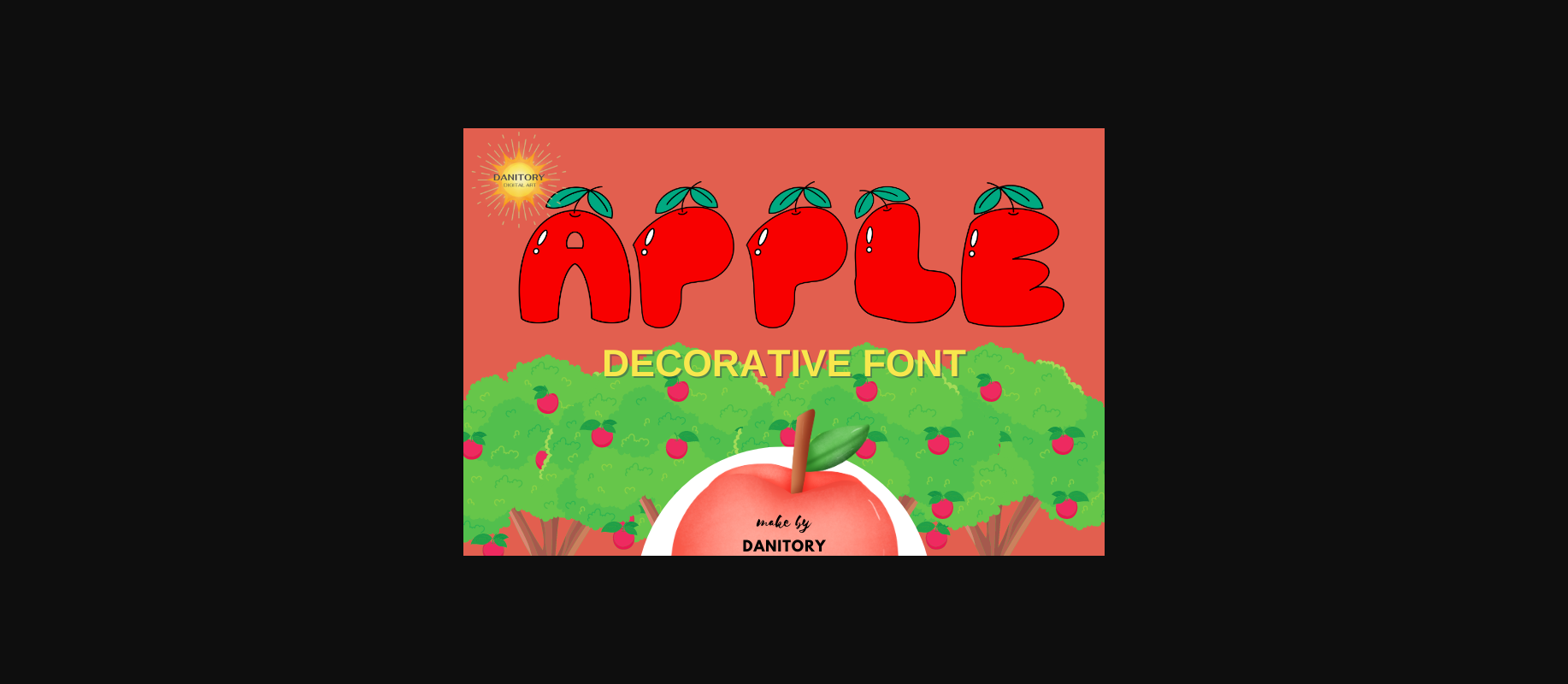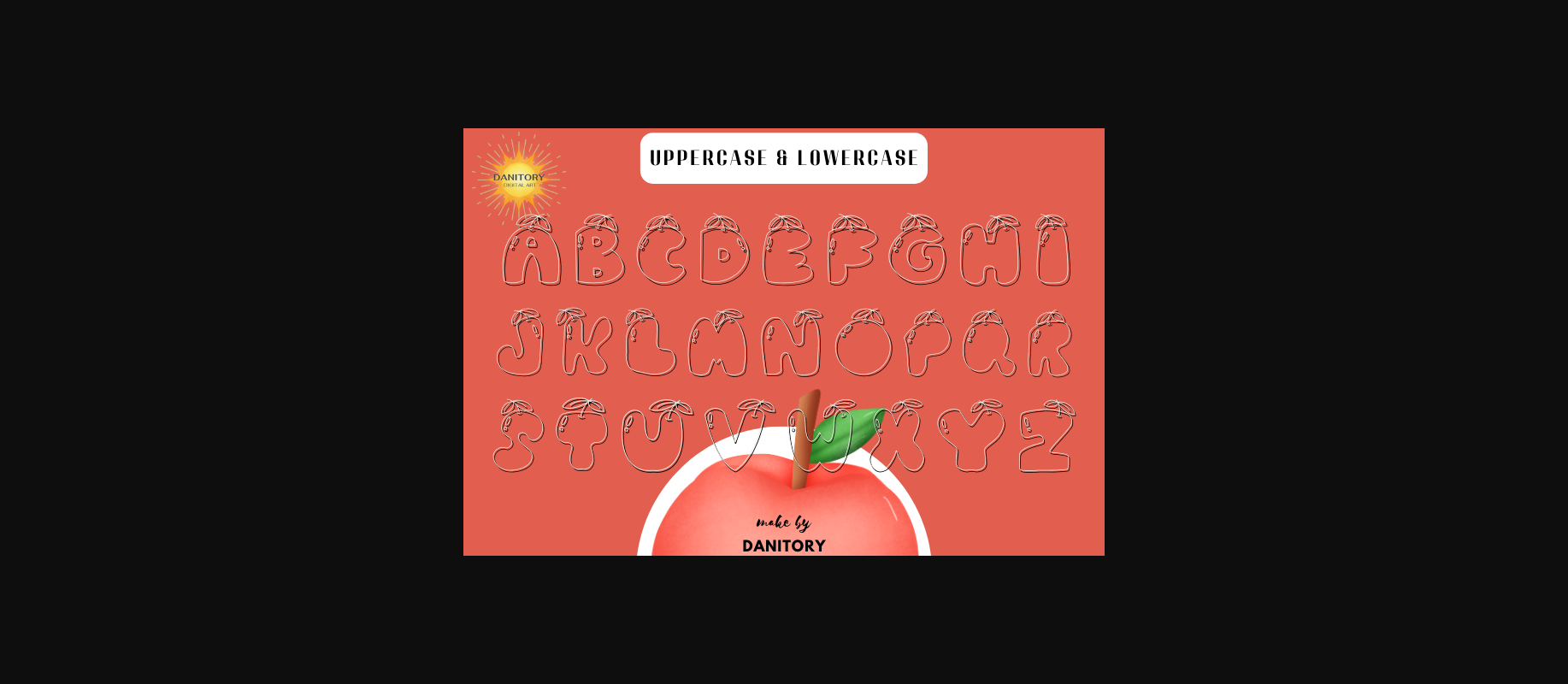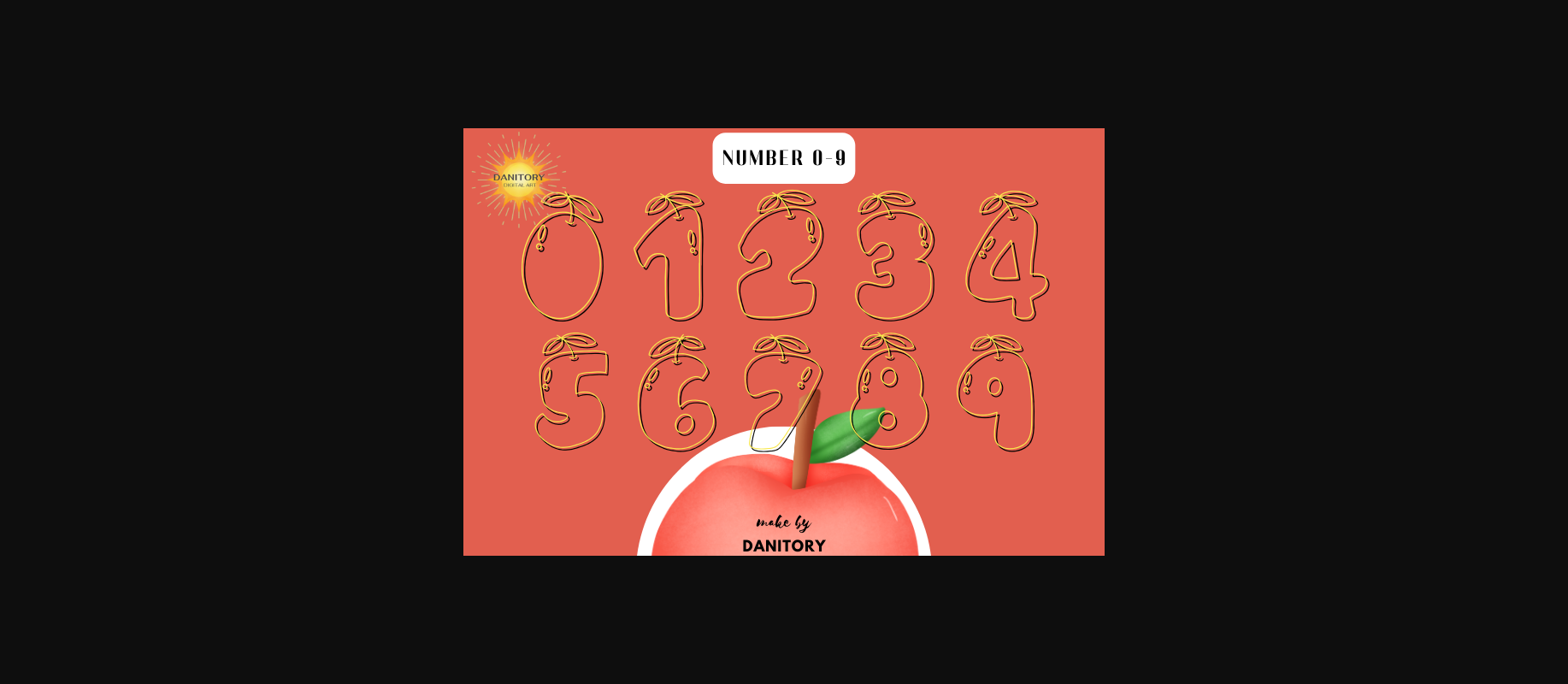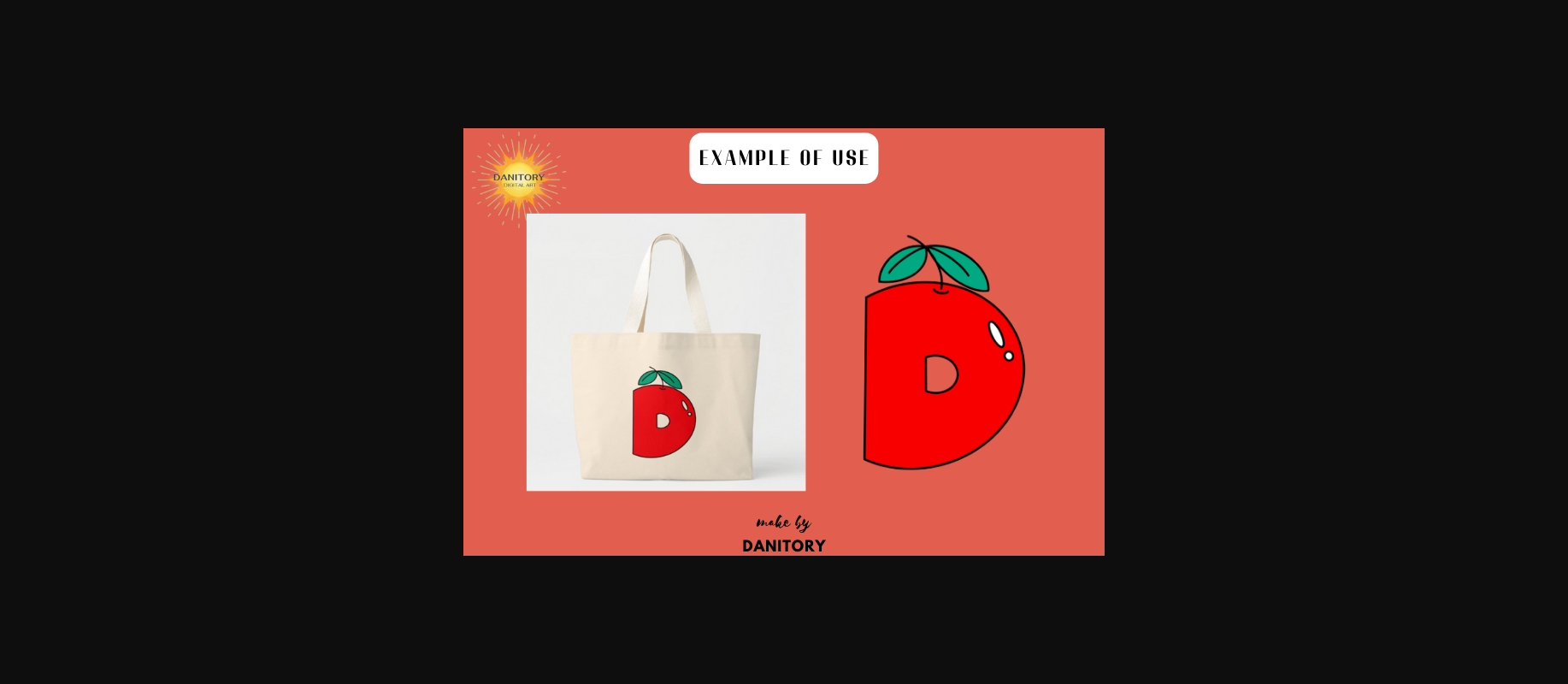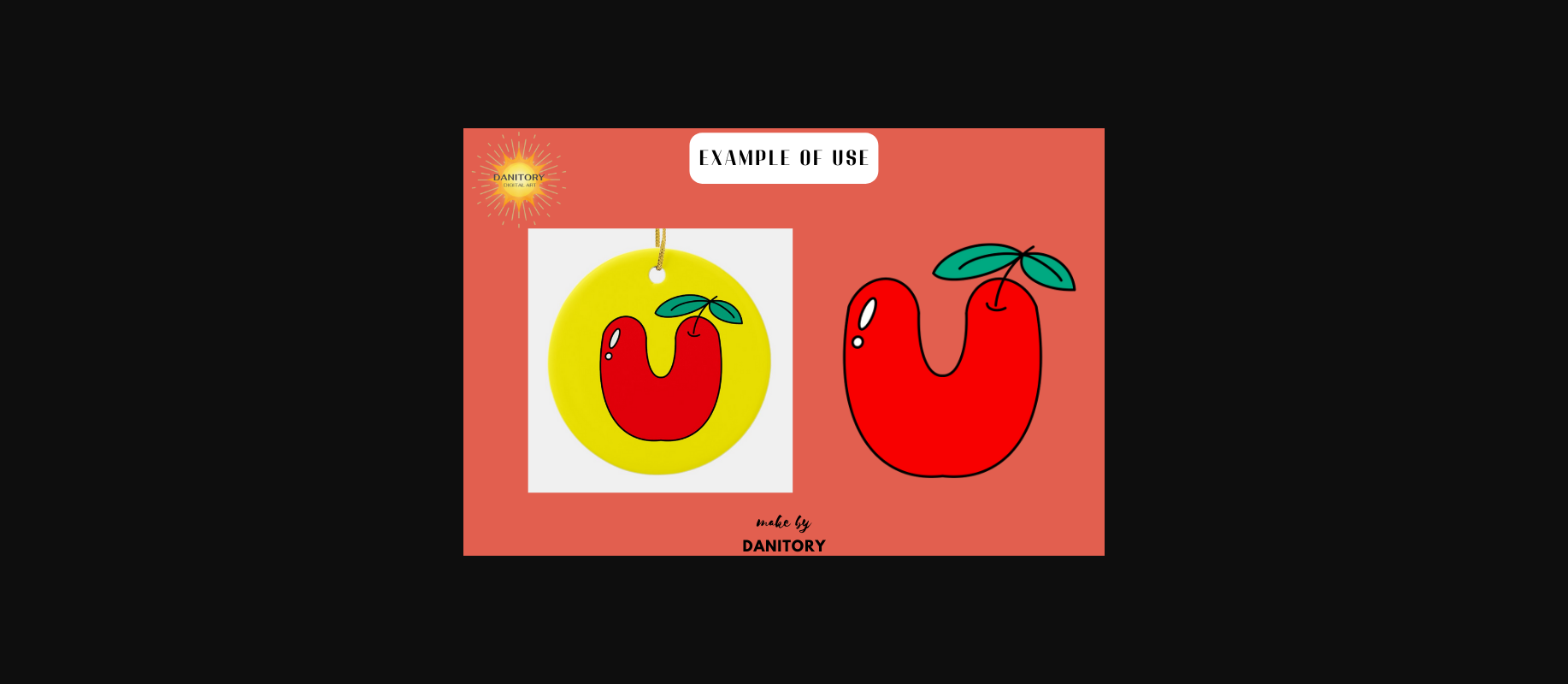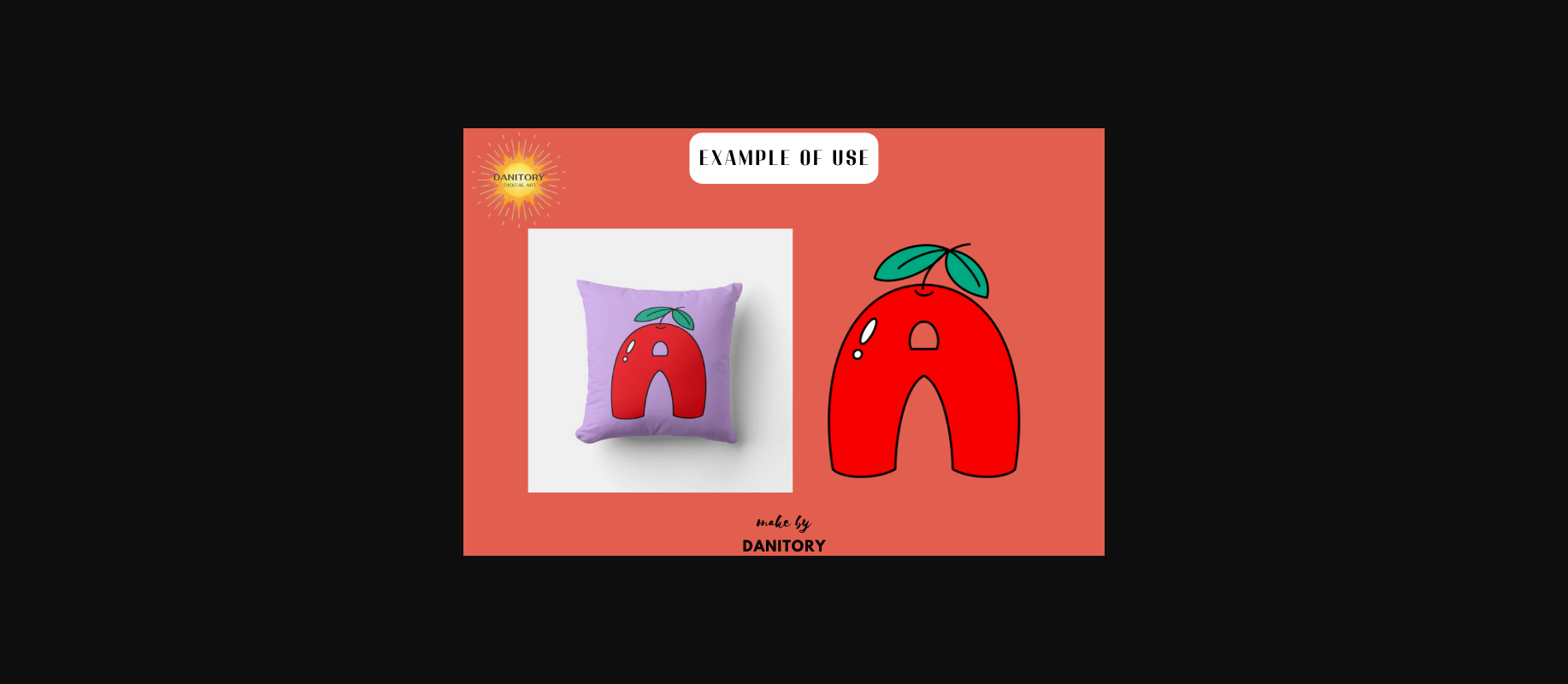
Apple Font
About Apple Font
Apple is a decorative font drawn by hand. The font design is cute and funny. This font is suitable for various tasks and products. This cute font brings a sense of fun and magic to any creative project. From children’s books to greeting cards, posters, and more, let your imagination run wild with apple-themed fonts. Hope you enjoy using my font.